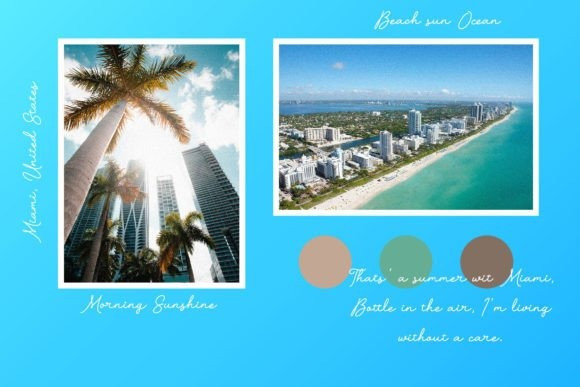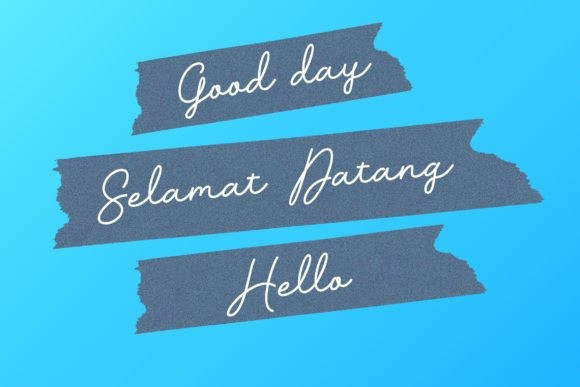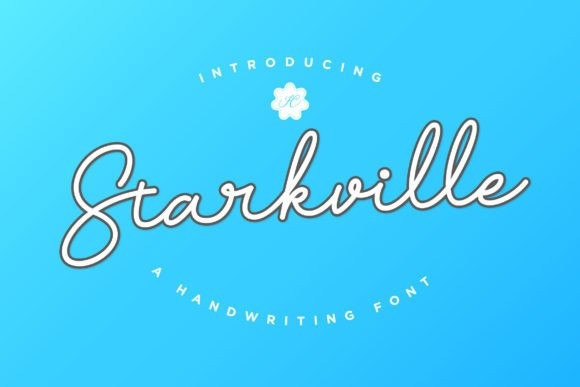
Starkville Font
Starkville Font is a stylish and neat monoline handwritten font. Whatever the topic, this font will be a wonderful asset to your font library, as it has the potential to enhance any creation.